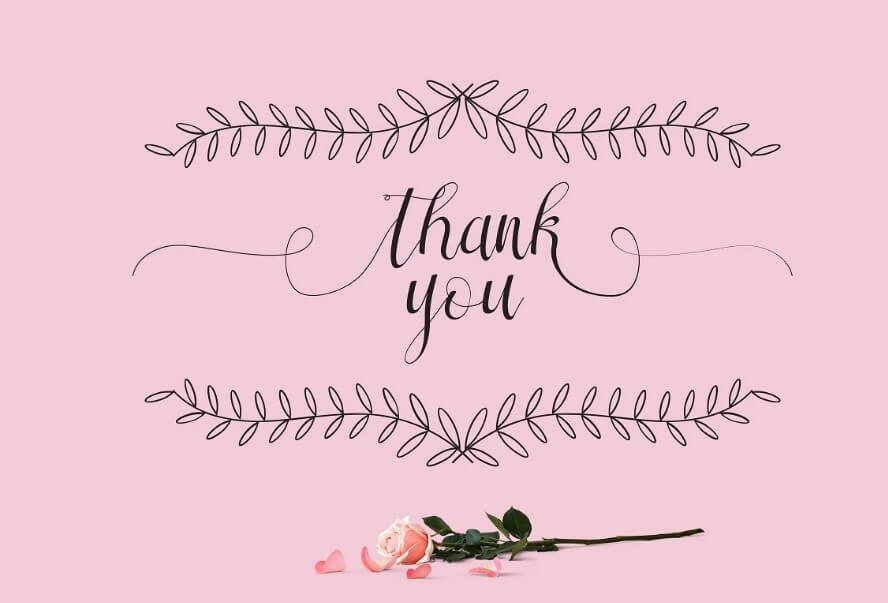
Sareeka Script Font is a current calligraphy typeface that is similar to quadraat sans with more variant stylistics units and lots of functions. Sareeka very suitable for feminine layout, wedding ceremony invitation and lots of extra to layout what you need.
Like, create eye-catching logos, brochure design, books covers, app set up, invitations and greeting taking element in playing cards as properly as printing items.
It’s additionally to be had as a variable font and could be a first-rate option for a wide range of layout projects, which includes logos, headlines, magazine covers and posters.
It has more of an authoritative feel. Usually used on film posters, this font looks like kids font appears each professional and forceful and cursive with heart swash.
This is an elegant brush font with a natural handwritten style. It’s best for the whole thing from ebook covers to wedding invites, website designs, blogs, and much greater.
On the off hazard which you analyze that typeface that is similar to turkish font strongly, then you’ll get a notion regarding the commitments of its creator in the direction of it. So, this particular font has a super capability to engage viewers itself.